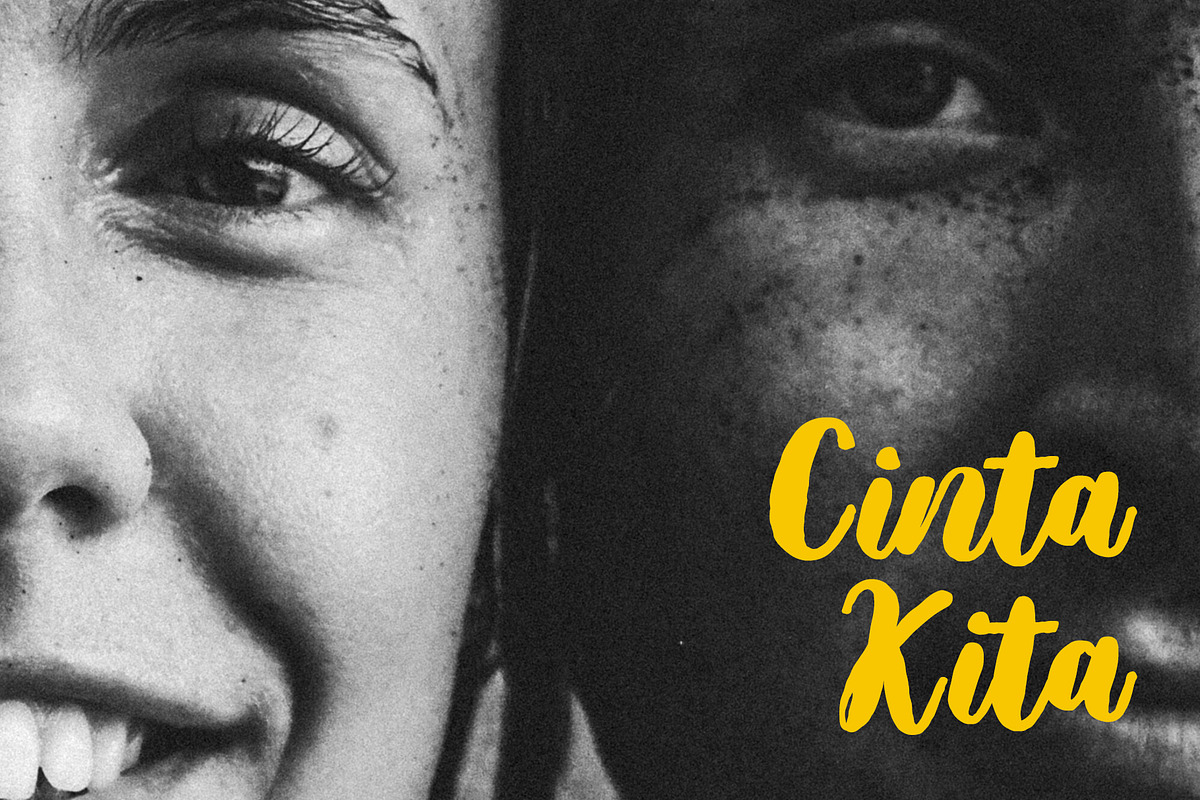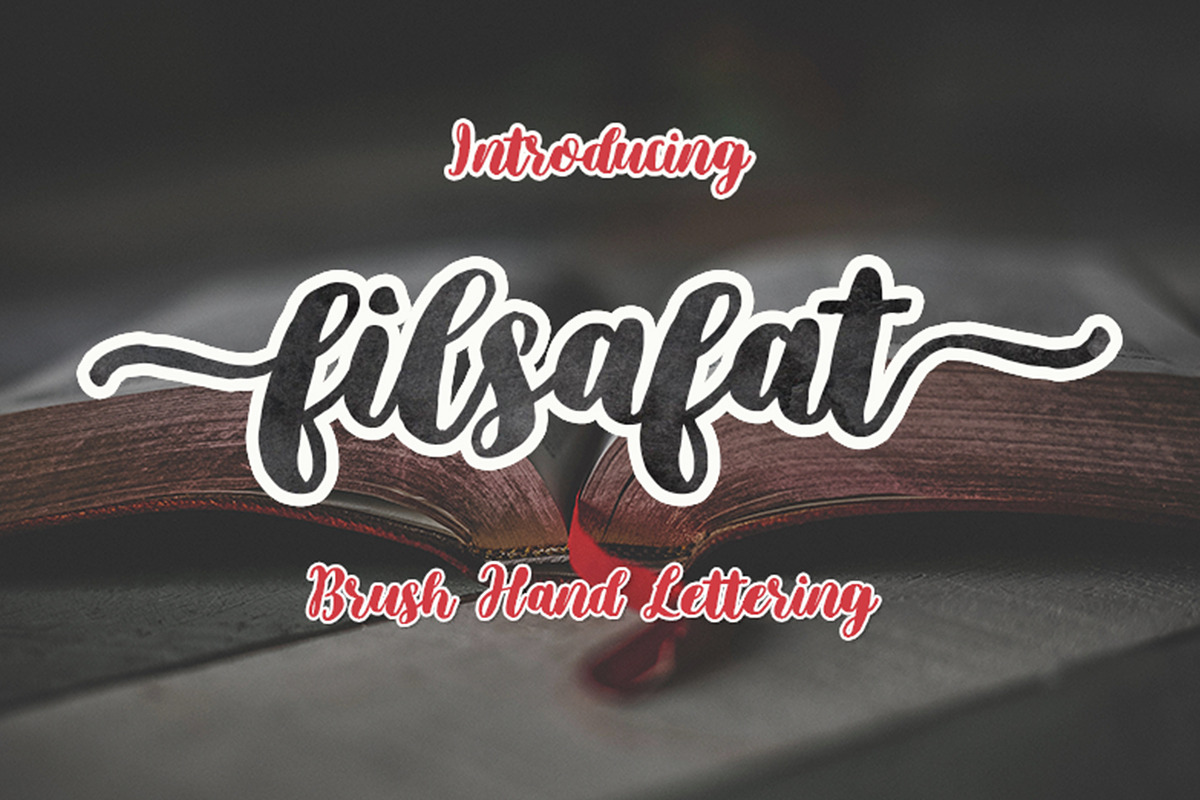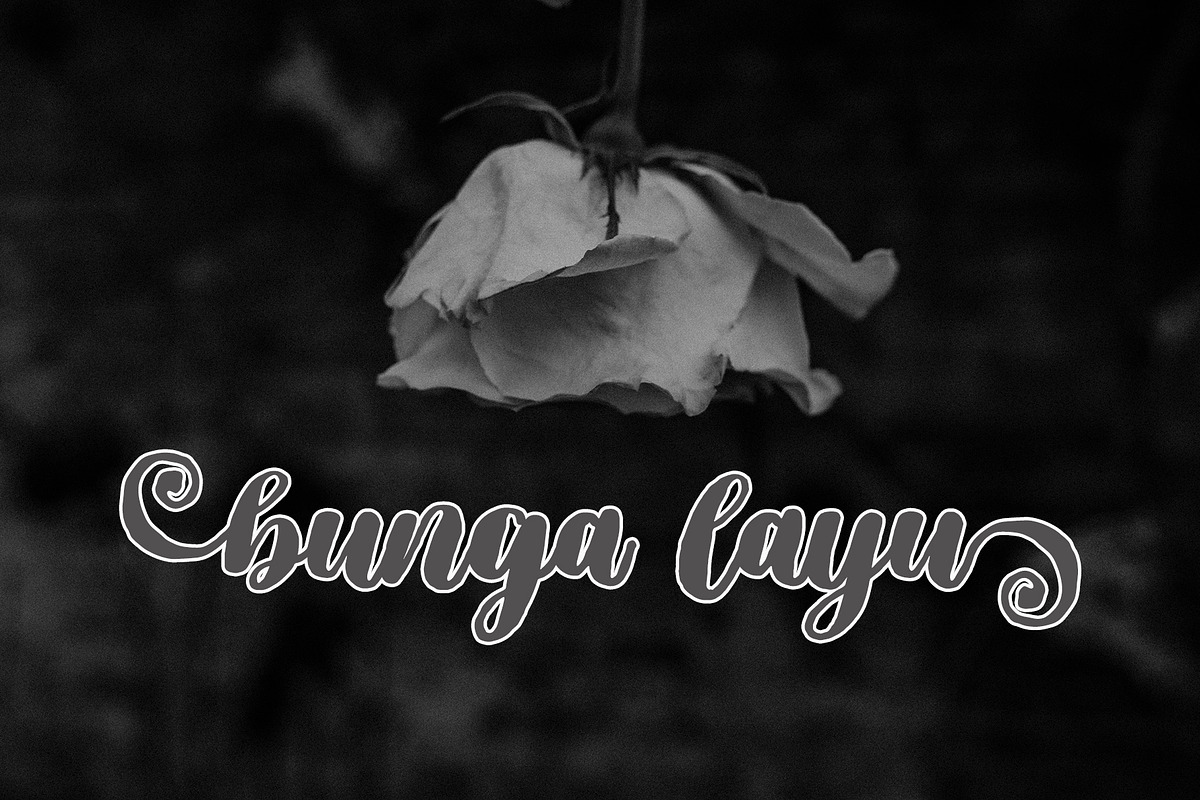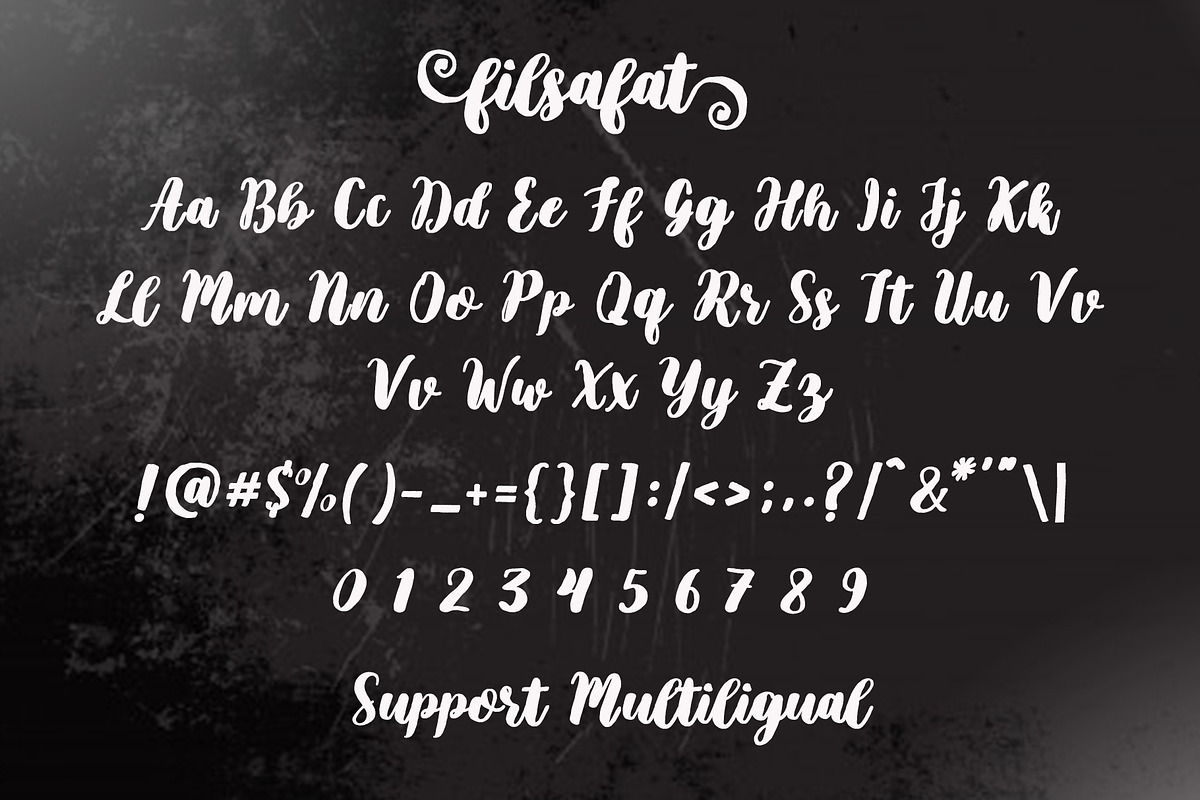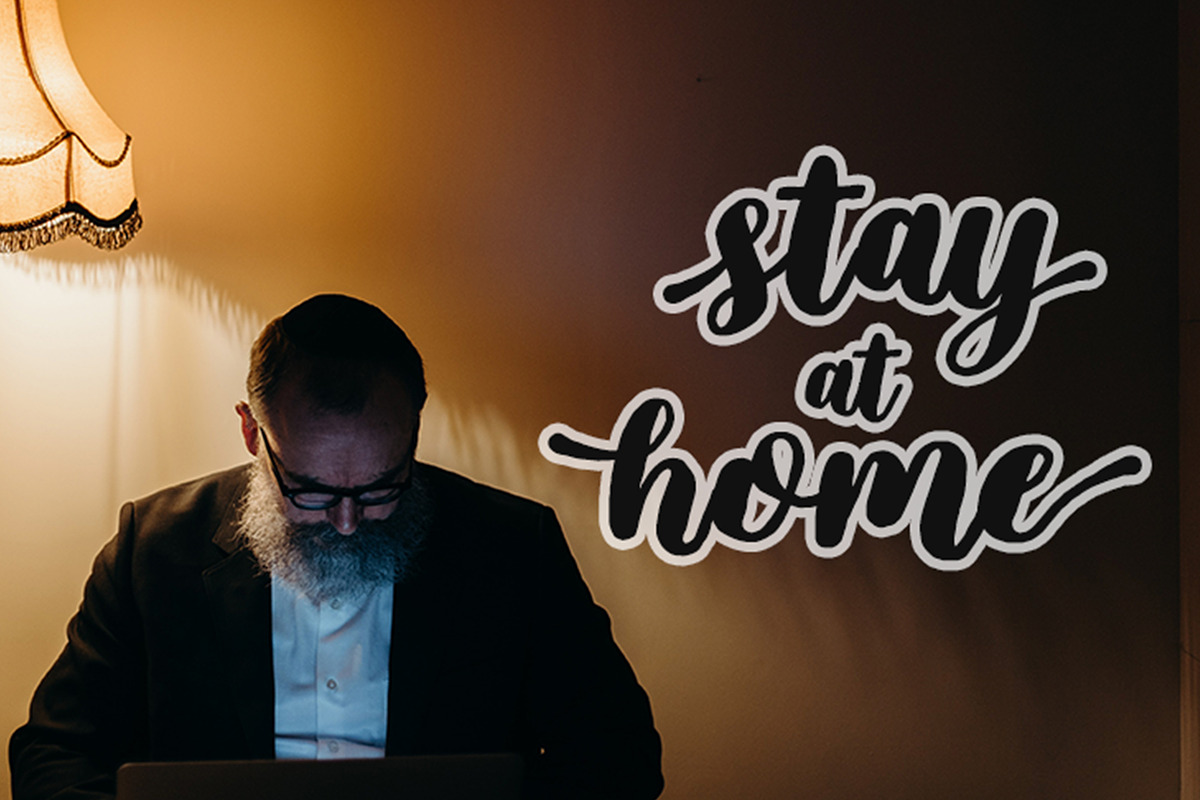
Filsafat Script | Brush Font
Filsafat Brush is a kind of handwriting calligraphy with new and modern hand scratches. This typeface has been added with various alternative characters up to 375 glyphs. This type of writing is perfect for logos, fashion, stationery, magazines, menus, books, invitations, greeting cards, packaging, labels, apparel, marketing, business cards, etc.